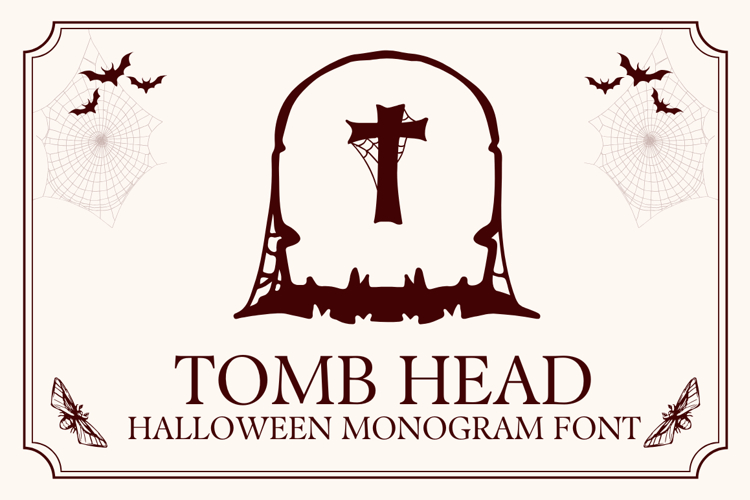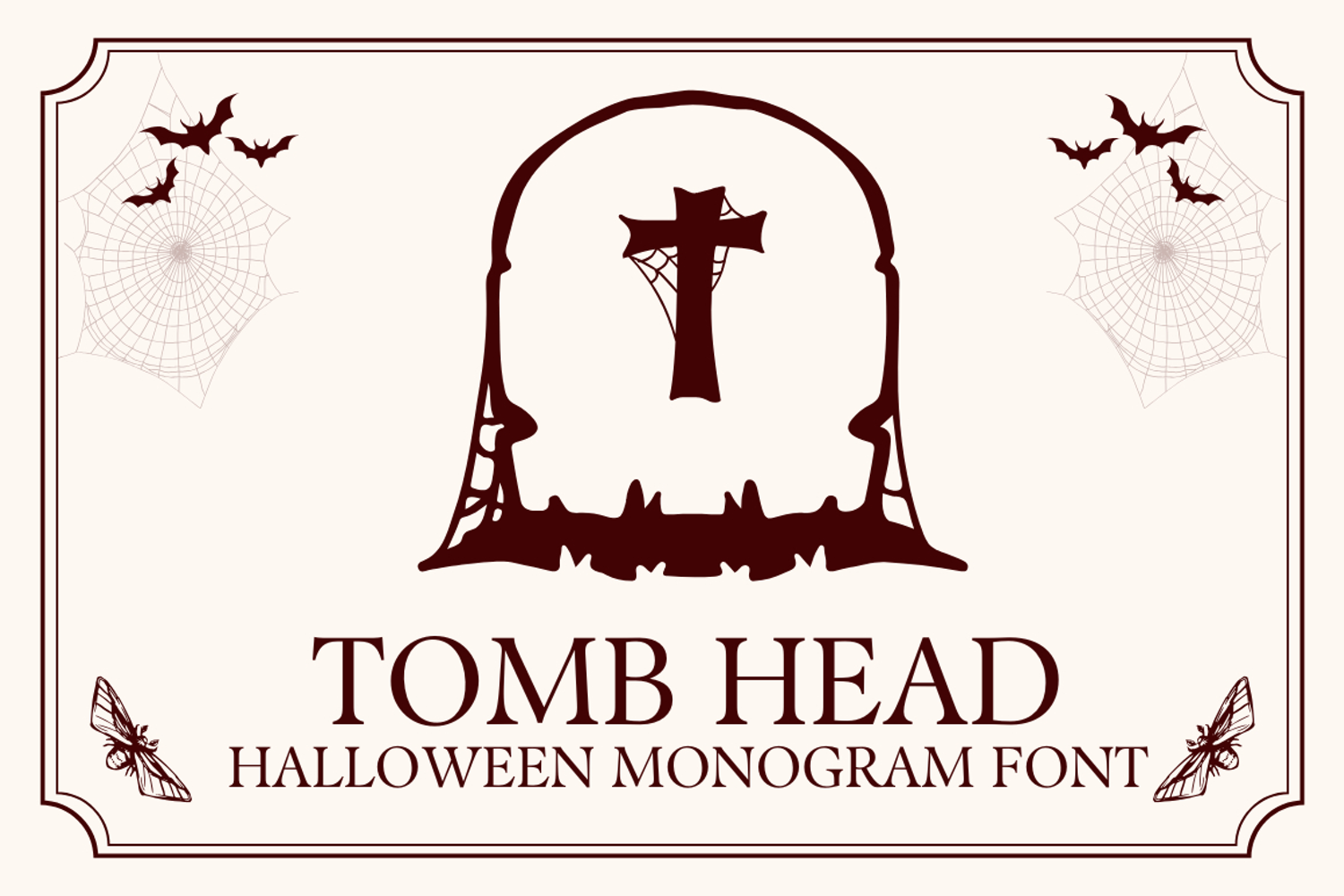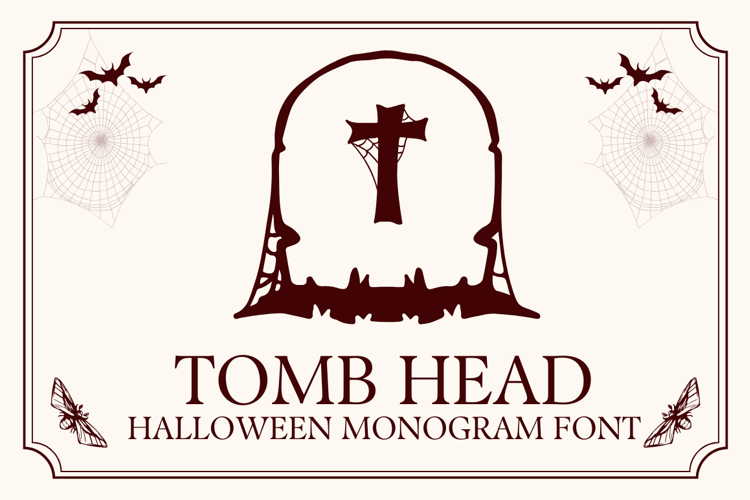
Tomb Head Monogram Halloween Font | Web Font
Tomb Head Monogram Font is a spooky monogram typeface built from grave-shaped letters and webby details, perfect for quick Halloween design. The set includes uppercase, lowercase, and numerals.
Need a frame without a letter? Type “.” or “,” to place the Monogram Frame Without Letter, then add your custom initial or wording in your design software. Convert to outlines for crisp vector shapes and clean cutting at any size.
Key Features
• A–Z uppercase, a–z lowercase, 0–9 numerals
• Grave/tombstone monogram style
• Frame-only shortcut: press “.” or “,”
• Smooth curves for easy cutting and scaling